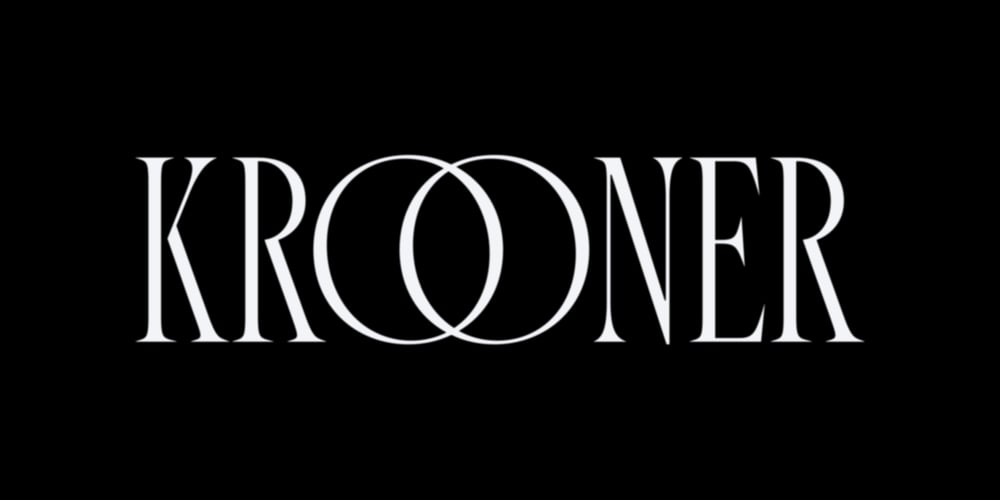
Krooner
Krooner font
Krooner Font Family was designed by Guillermo and published by Nois. Krooner contains 2 styles and family package options. Krooner is a serif display typeface that seeks sophistication through elegance. With a compressed style and wide circular figures, it stands out as a typeface for short titles, its italic version has a high level of readability for long texts without losing its style in small sizes. The characters are created with a great level of detail that can be appreciated in its greatest splendor in large sizes.It has more than 600 characters and ligatures that together with its rational, humanist and contemporary serif features make it very versatile for a large number of applications.